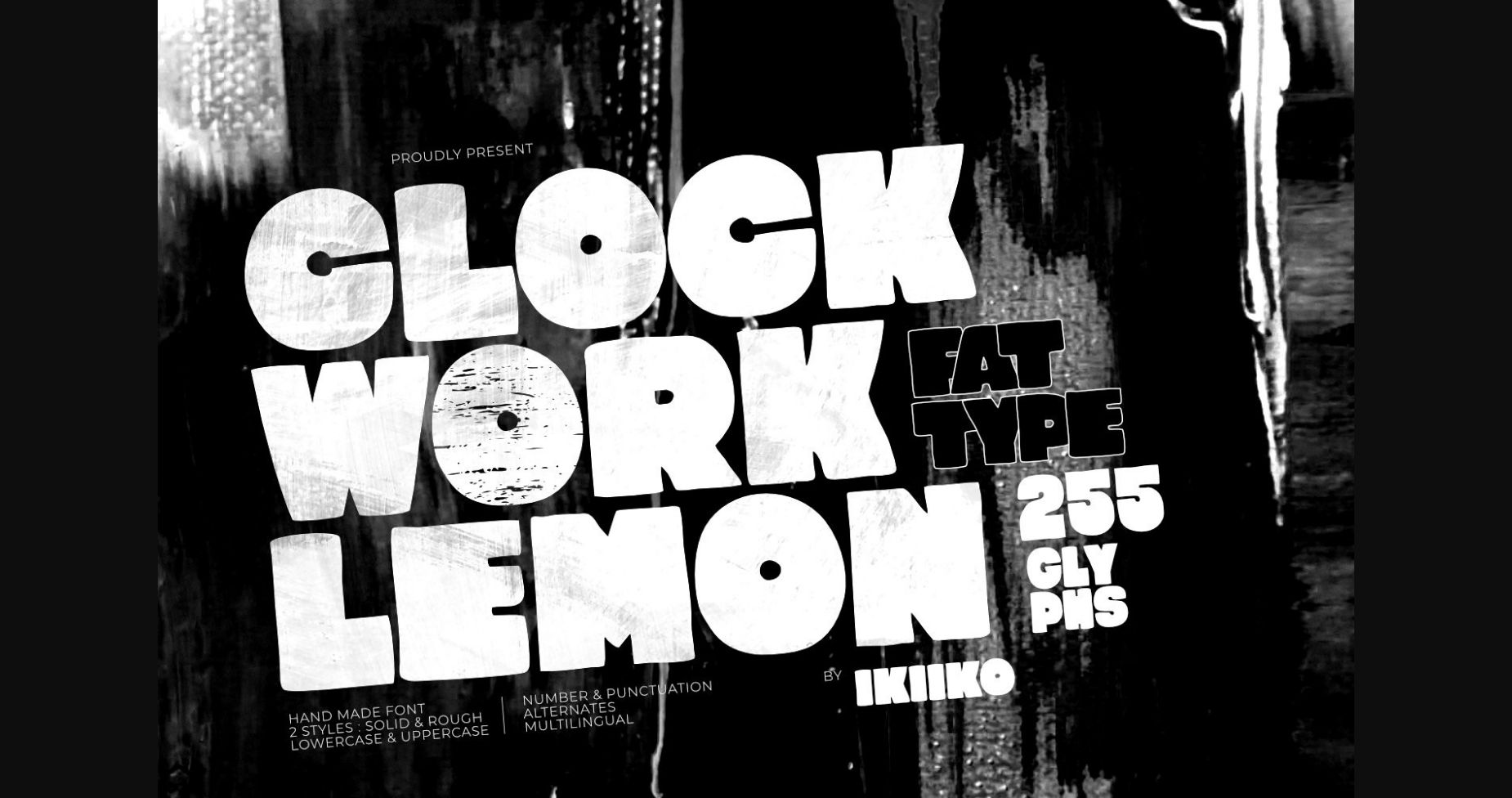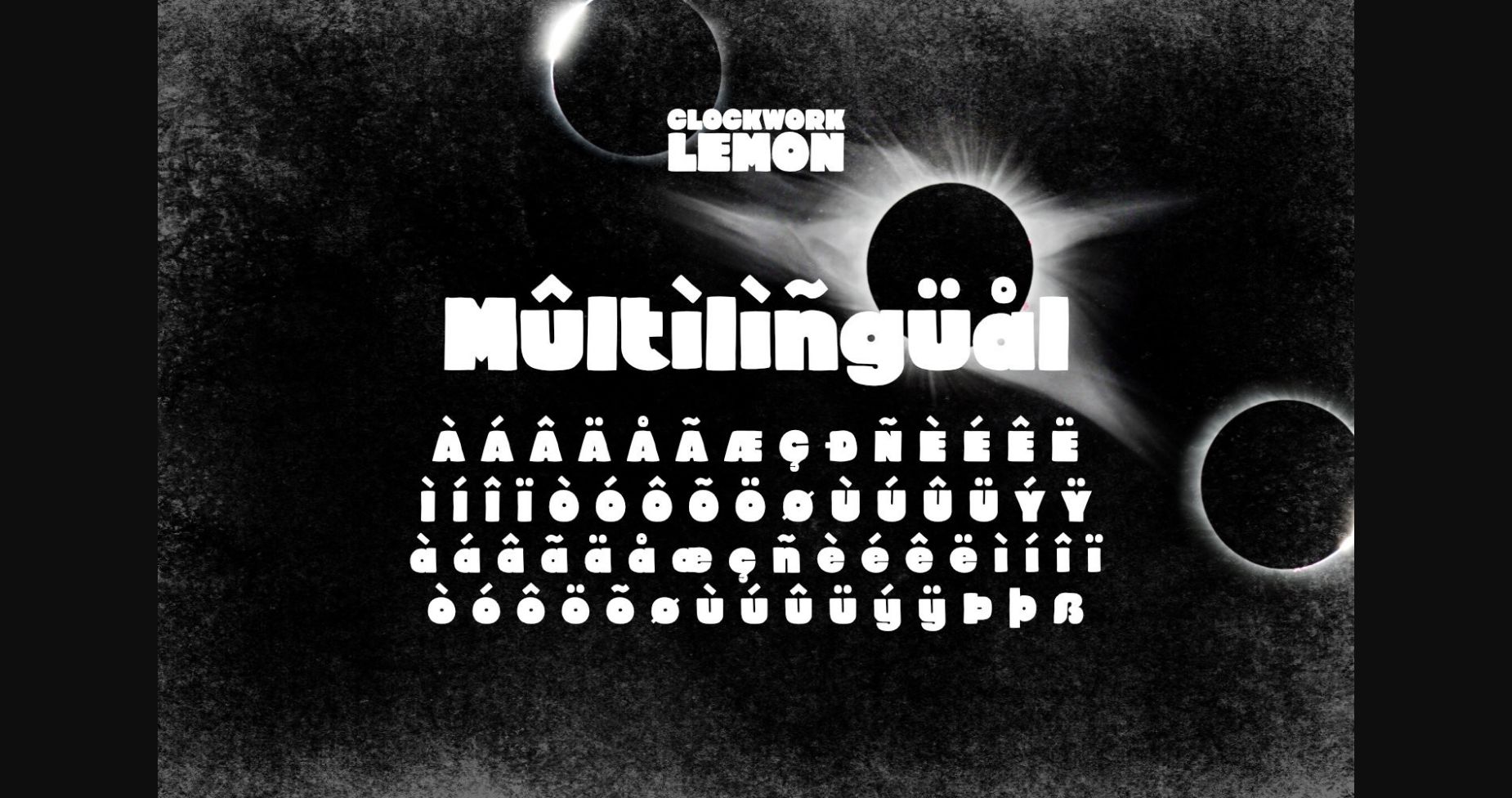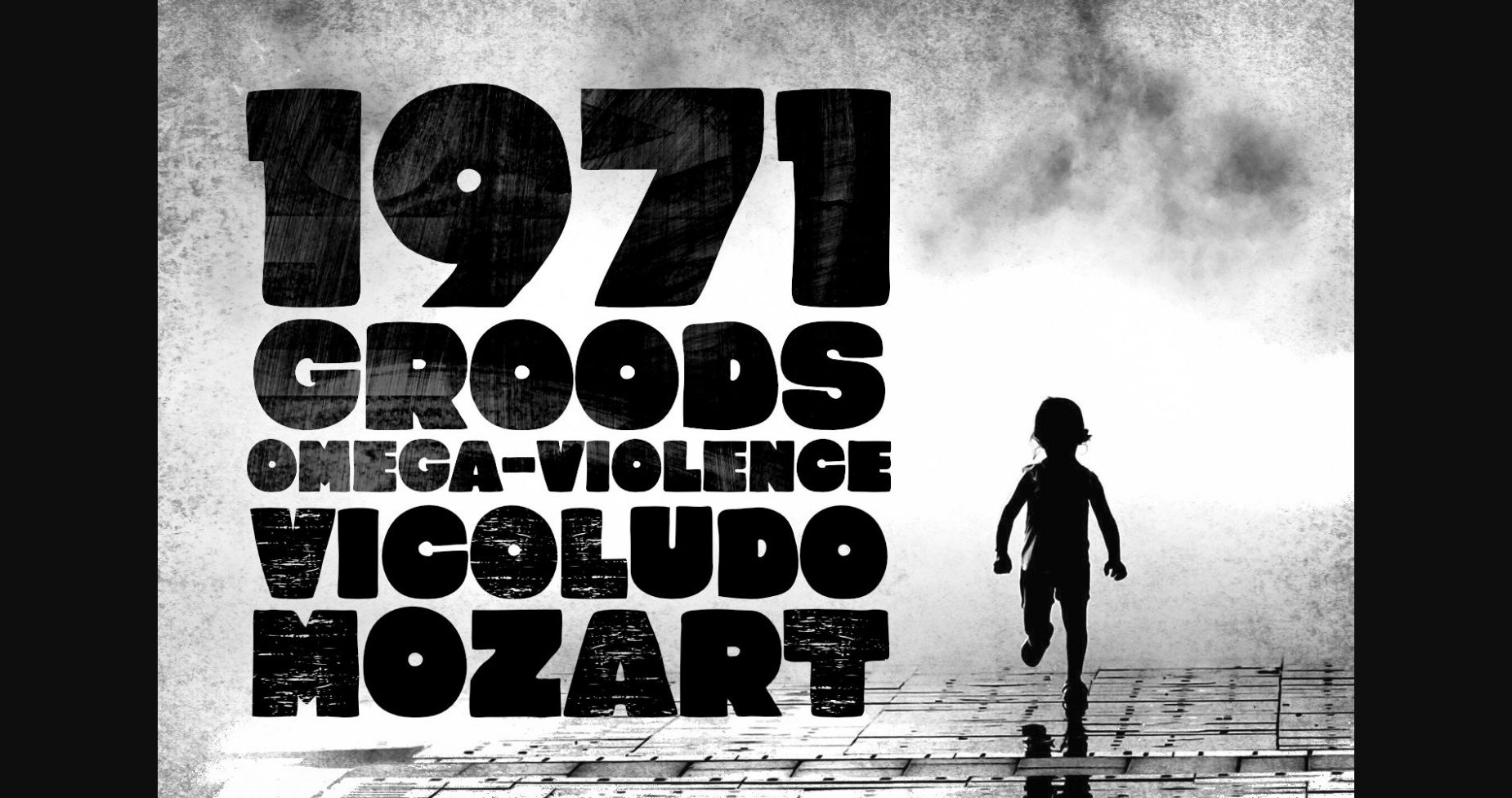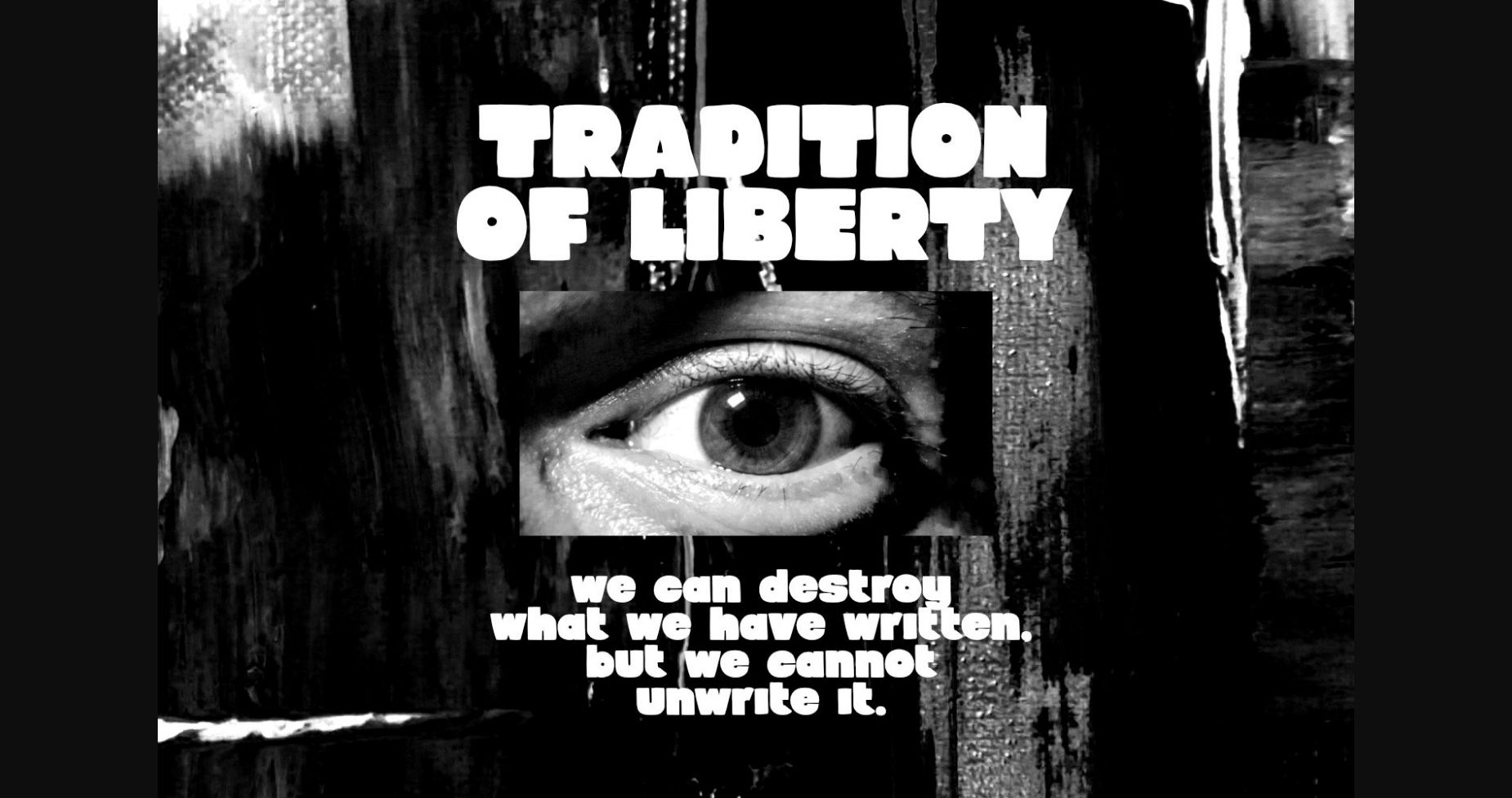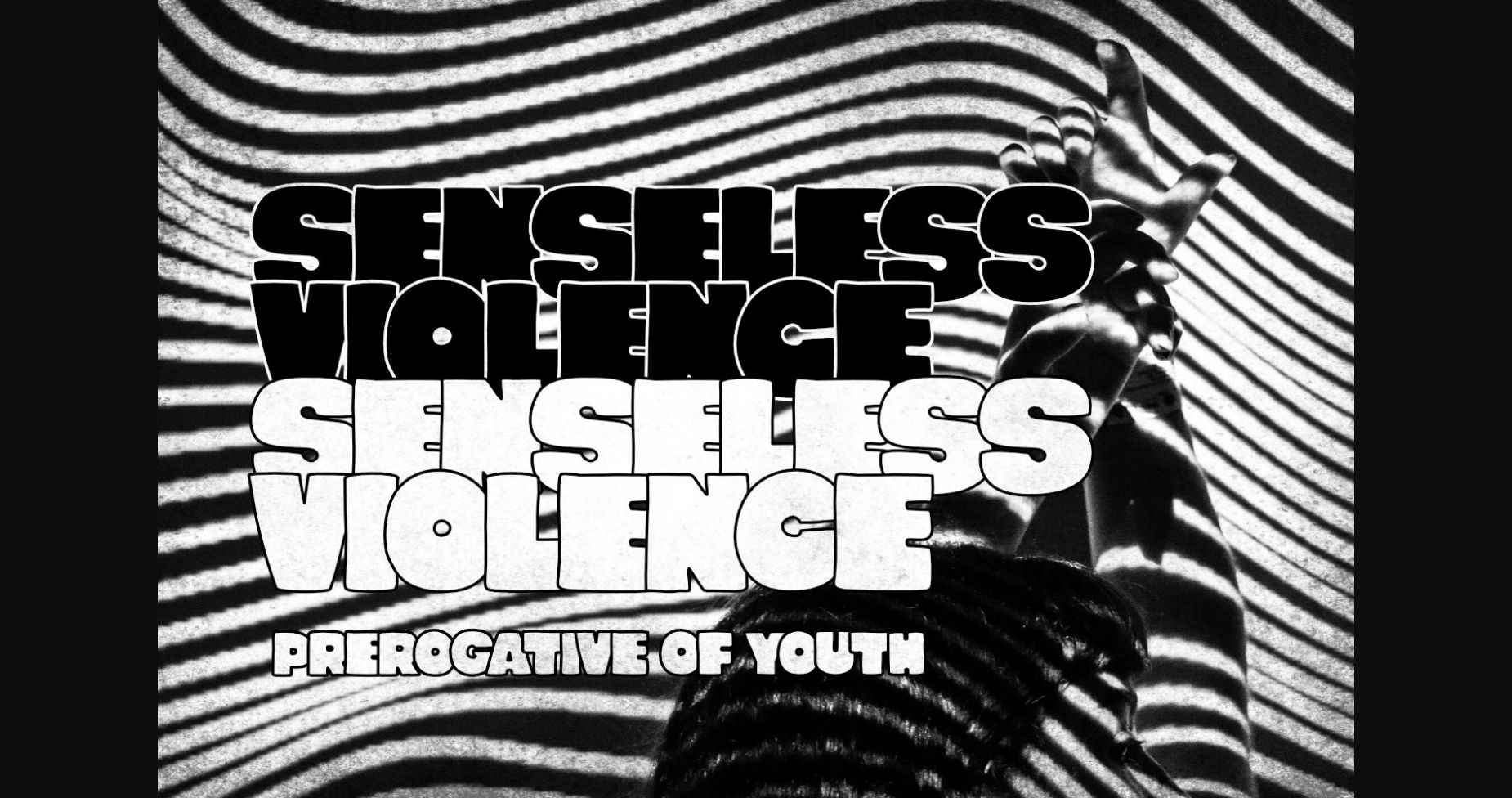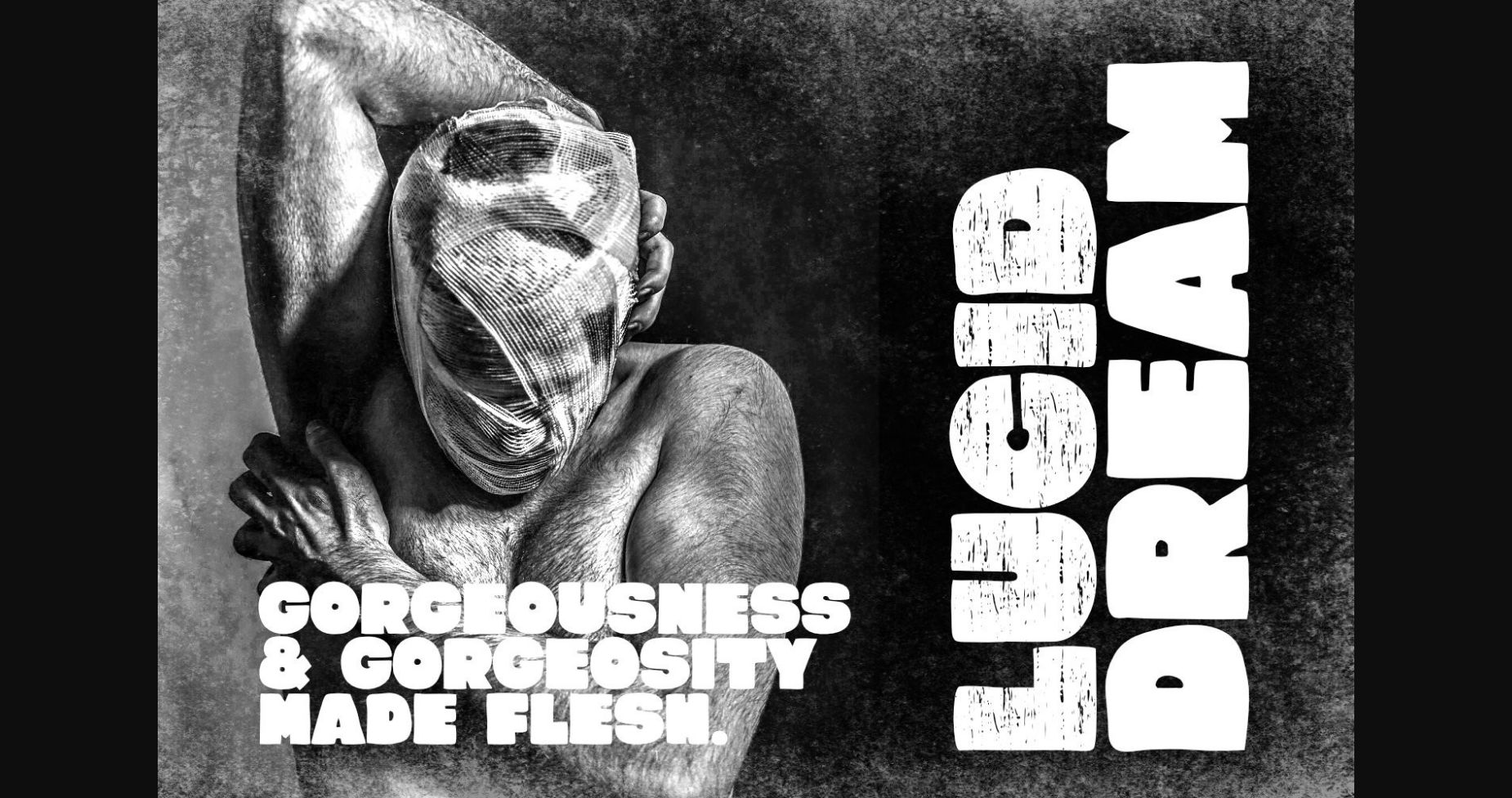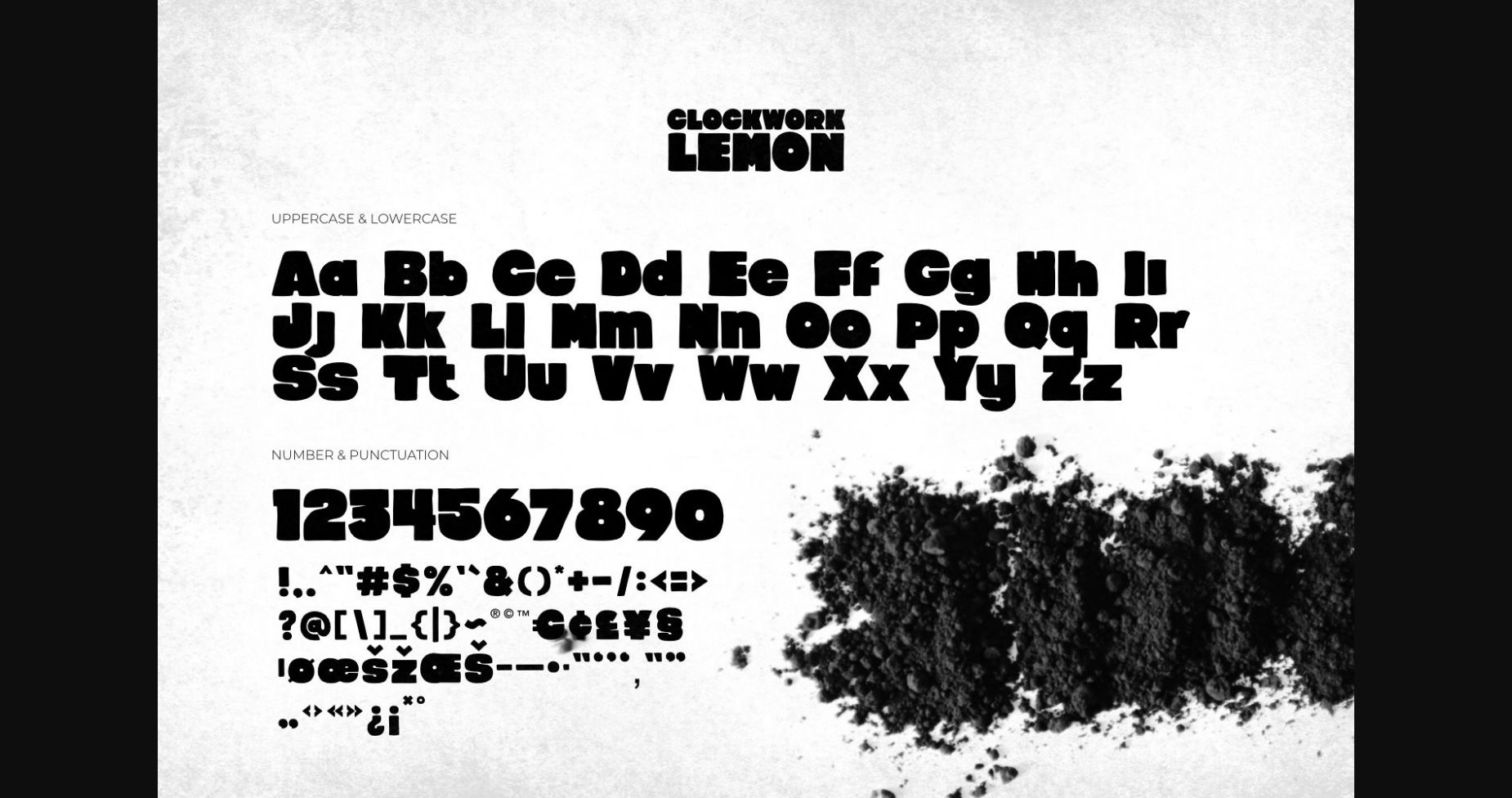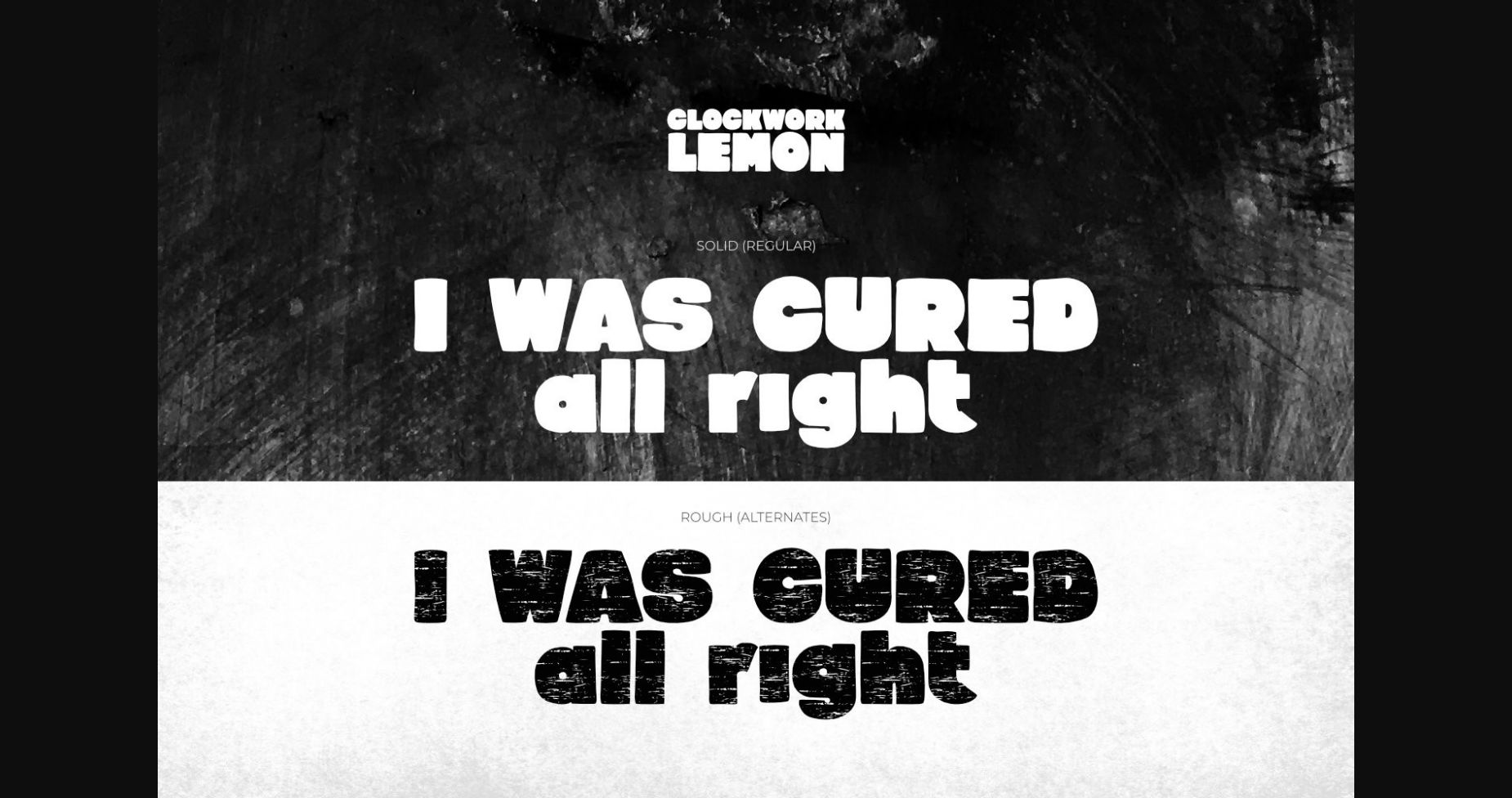
Clockwork Lemon Font
About Clockwork Lemon Font
This vintage and attractive sans-serif font features a classic and stylish look. Its bold lines and sharp angles give the perfect balance of a modern and timeless feel. Ideal for any project needing a touch of sophistication. This font is PUA encoded which means you can access all of the amazing glyphs and ligatures with ease!